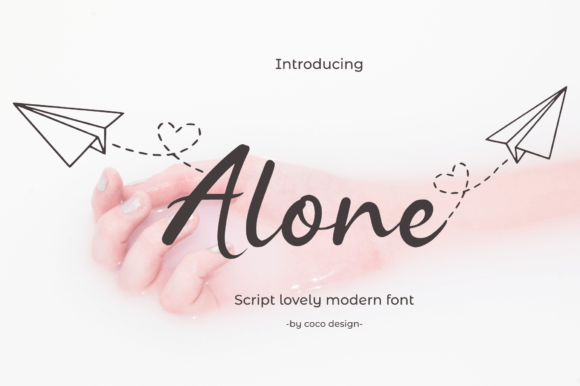
The Elusive Perfect Font: My Journey with Alone Font
I’ll never forget the frustration of working on a wedding invitation project, scrolling through font after font, trying to find the perfect one. My client wanted something elegant, yet modern; something that would make their special day feel truly unique. And then, I stumbled upon Alone Font. 💕
Designed by hand with a natural style, Alone Font quickly won me over with its effortless charm. In this article, I’ll share my experience with this lovely modern script font, its features, and how to make the most of it in your designs.
An Honest Review of Alone Font
- 💫 Elegant and modern script style, perfect for headings and logos
- ✅ Highly versatile, suitable for various design projects, from wedding invitations to posters
- 🎨 Beautifully crafted with a natural, handwriting feel
- 📚 Extensive OpenType features, including glyphs and stylistic alternates
While Alone Font is an excellent choice, there are a few things to keep in mind:
- 🤔 Limited use of bold weights, which might not be ideal for body text
- ⚠️ Some characters may require manual kerning for optimal results
The Story Behind Alone Font
Alone Font was designed with the intention of creating a beautiful, natural script font that would evoke a sense of elegance and sophistication. The designer aimed to craft a typeface that would be versatile and easy to read, while still maintaining a unique and creative feel.
Q: What is the best use for Alone Font?
A: Alone Font is highly versatile and can be used for various design projects, such as headings, logos, wedding invitations, t-shirts, letterhead, signage, labels, news, posters, badges, and more.
Q: Does Alone Font include OpenType features?
A: Yes, Alone Font includes a range of OpenType features, such as glyphs, stylistic alternates, and ligatures, which can be accessed through compatible design software.
Q: Is Alone Font easy to read?
A: Yes, Alone Font is designed to be elegant and easy to read, making it suitable for a range of design applications, from headings to body text.